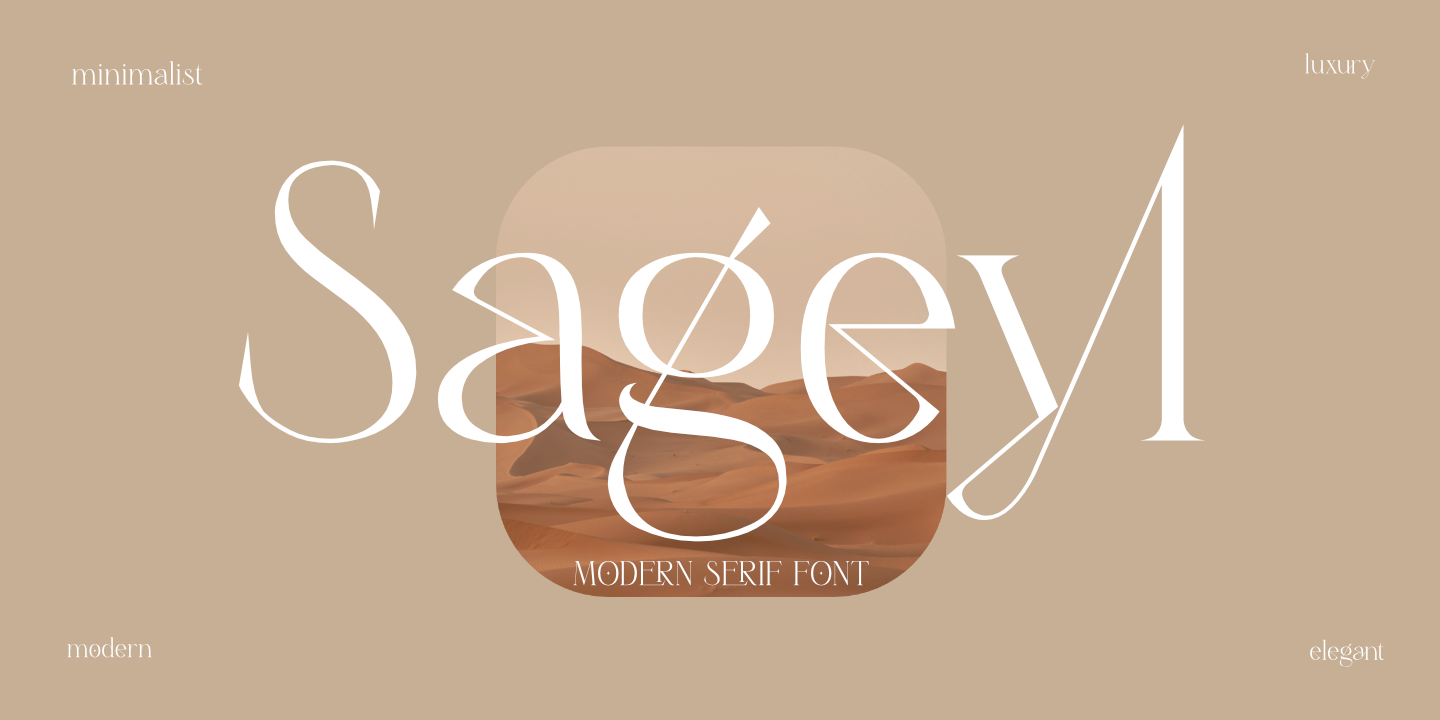
Sageyl Font is ideal for wisdom-inspired design projects including holistic wellness centers, mindfulness coaching services, ancient wisdom publications, spiritual guidance organizations, meditation retreat centers, philosophical study groups, wisdom literature publishers, and enlightened lifestyle campaigns. This thoughtful typeface works perfectly for life coaching consultancies, wisdom tradition centers, contemplative learning institutions, spiritual bookstores, and projects that celebrate inner wisdom and thoughtful reflection through meaningful design.
What makes Sageyl Font exciting is its wise contemplative character that perfectly captures the essence of ancient wisdom and spiritual enlightenment. The font features flowing letterforms with thoughtful curves that reflect the deep understanding and timeless knowledge found in wisdom traditions. Its sage design elements embody the spirit of philosophical insight and spiritual growth, making it perfect for projects that need to convey wisdom, depth, and connection to timeless teachings. The carefully crafted contemplative proportions create an atmosphere of spiritual sophistication and wise authenticity.
Sageyl Font comes in multiple family variations including wise, contemplative, spiritual, and enlightened styles. Each weight maintains the distinctive wisdom character while offering different levels of spiritual intensity and contemplative presence. The font family includes wisdom alternates, sage ligatures, and contemplative variations that provide designers with comprehensive options for creating truly thoughtful and authentically wisdom-inspired typographic compositions that celebrate spiritual excellence.
Whether you're designing wisdom branding, creating spiritual marketing materials, or developing contemplative promotional graphics, Sageyl Font Free Download provides the perfect typographic foundation for projects that celebrate wisdom excellence and spiritual sophistication. This remarkable typeface transforms ordinary text into compelling expressions of ancient wisdom and spiritual insight. Download this wise font today and enlighten your design projects with the spiritual authenticity and contemplative elegance that captures the essential spirit of wisdom traditions and philosophical reflection.